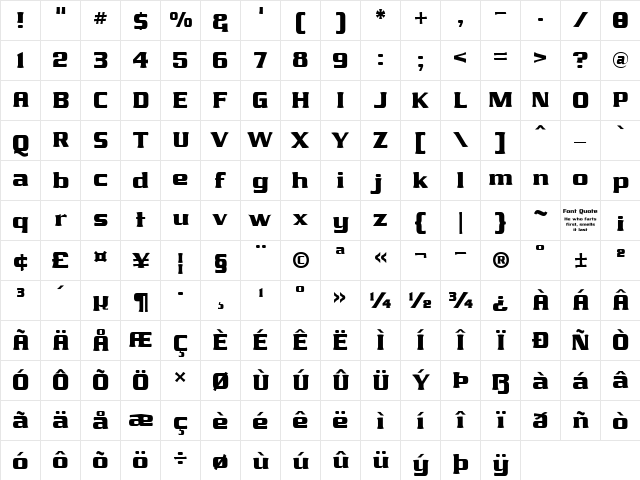
James Eight Eleven Regular Font Preview
James Eight Eleven Regular
James Eight Eleven Regular Font Details
| Designer | Graham Meade |
Design Context for James Eight Eleven Typeface
James Eight Eleven offers clean, dependable letterforms without strong stylistic allegiance, making it a practical choice for designers who need flexibility.